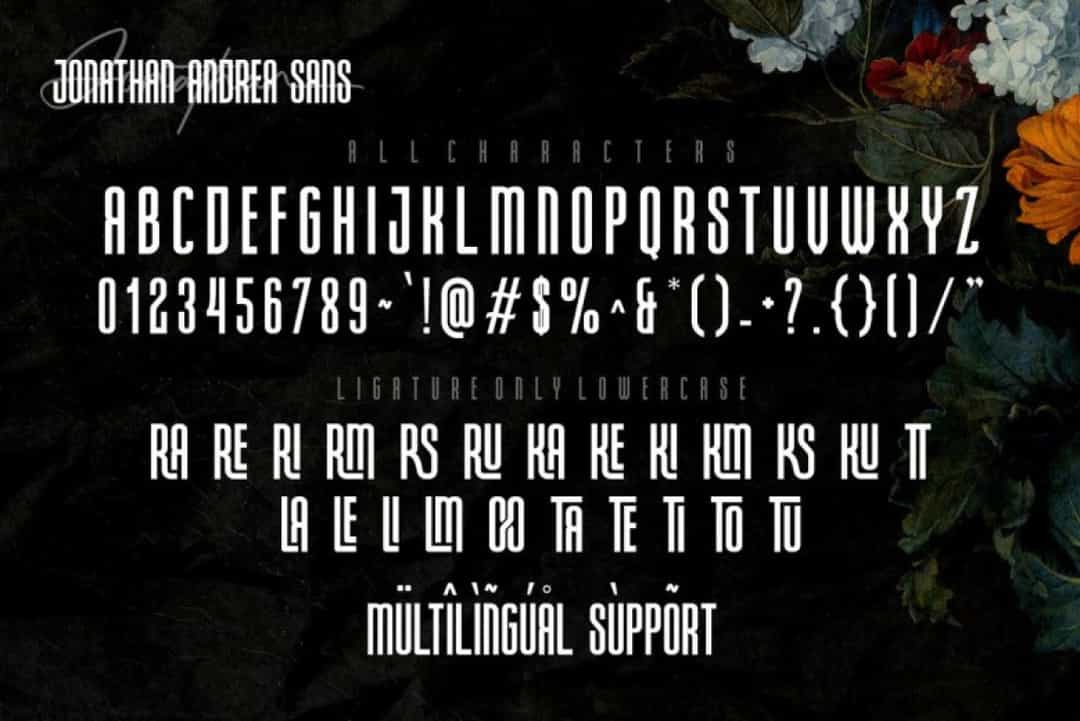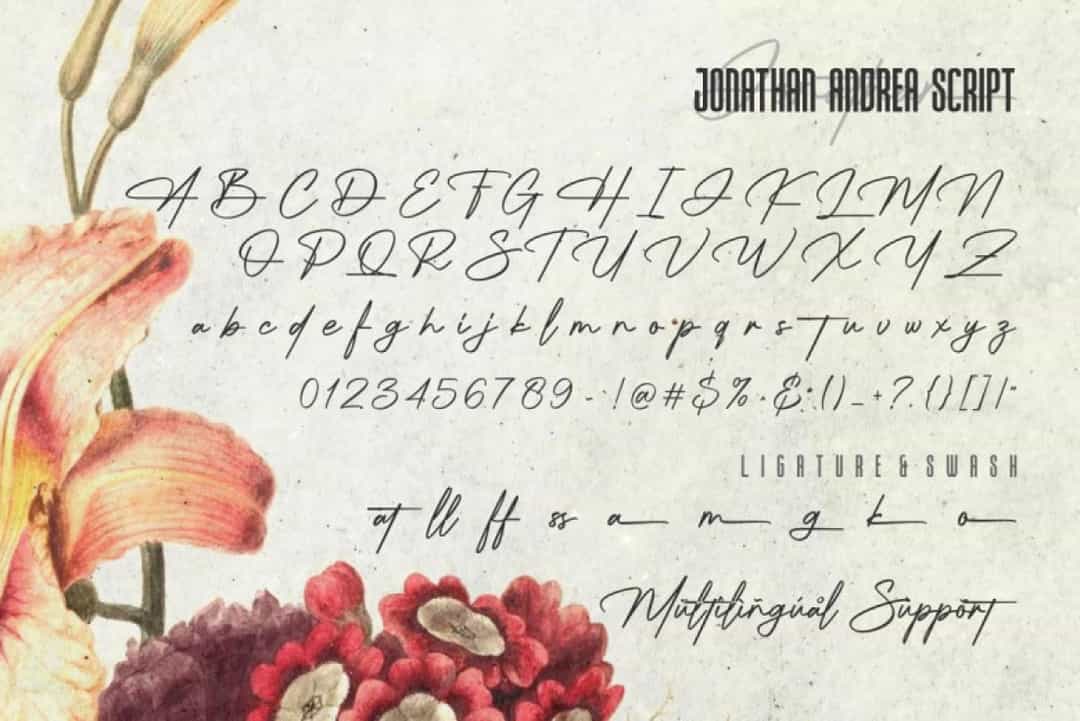
Discover Jonathan Andrea Font, part of the Sans Serif Handwritten collection—a versatile and unique font perfect for adding a personal touch to your projects. Download it for free and enjoy crafting designs with style, from invitations to social media posts. This font is available exclusively for personal use, giving you the freedom to create without limits. Unlock your creativity with Jonathan Andrea Font today!
Jonathan Andrea is an elegant combination of fonts modern signature and elegant Sans. We crafted this font with meticulous care to meet the highest quality standards, and make this font ideal for use in styles requiring elegance, elegant designs, or minimal designs.